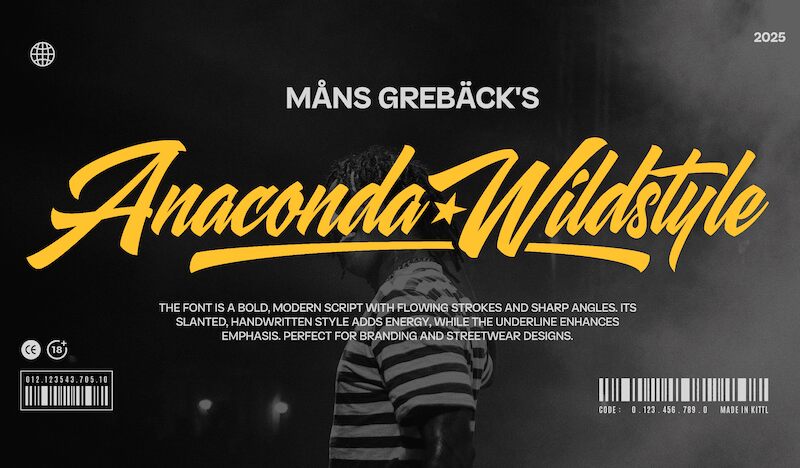
Anaconda Wildstyle font is a free brush font designed by Mans Greback with unbridled energy, evoking a sense of freedom and bold self-expression. This sleek, flowing script-style lettering has a striking, unrestrained design that flows and curves with a wild spirit for everything from edgy clothing branding to unique skate park posters.
Bring expressive contemporary appeal to game graphics, mobile apps, book covers, magazines, advertisement campaigns, website designs or blogs. Its energetic urban vibe will surely pay off on comics and graphic novels in print or digital form. Use it in packaging for consumer goods or excellent captivating signage!
Use an underscore (_) to create a swash under any word.
Example: Free_dom
Utilize multiple underscores to create different underlines.
Example: Hawk________liners